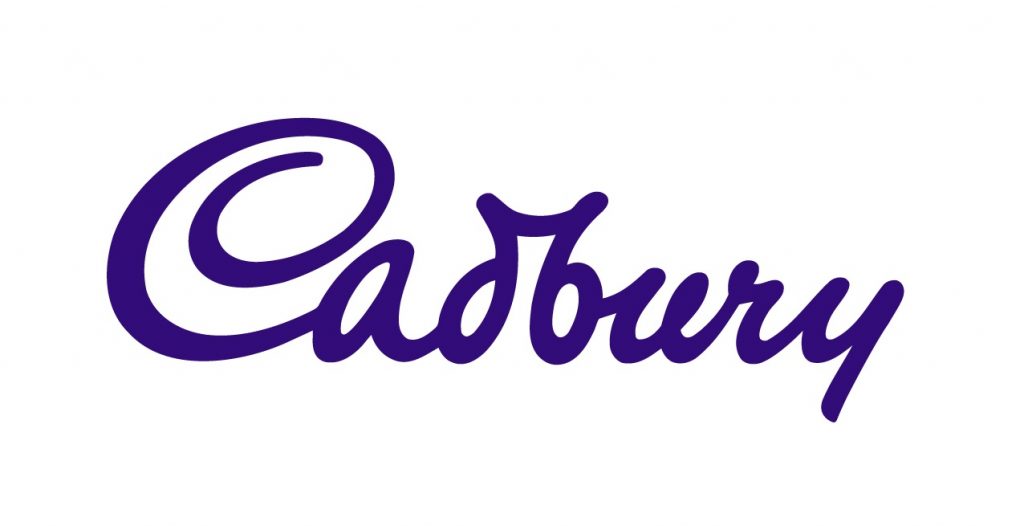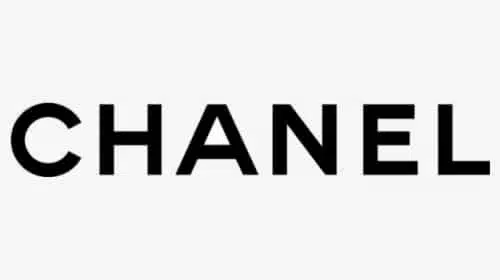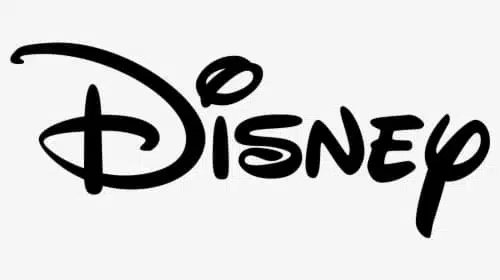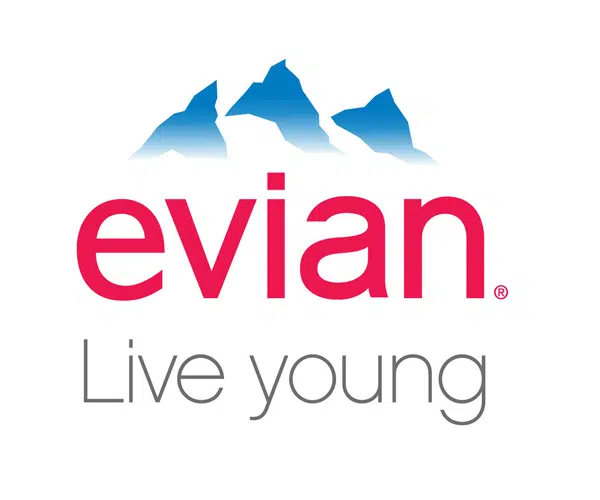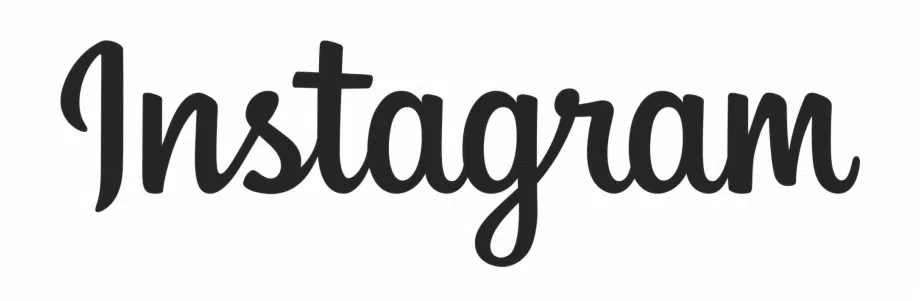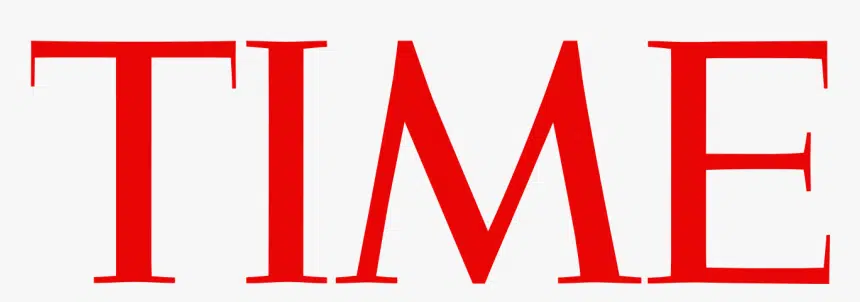
5 types of fonts that are suitable for your new business
When building a new business, you must prepare a logo that can reflect your business to your customers. Logo can’t be separated from typography, therefore before choosing a font that must be considered is the context and potential audience or consumers. Fonts represent the message you want to convey to the reader. The following is the psychology of frequently used fonts that you can adjust to your business image.
1. Serif
Classical, well-established, symbolizing trust and honor. This font is often used by companies that want to build awareness and is often used by financial, broadcasting and editorial companies, where companies need trust from clients that can start from the appearance of the company name. An example of a company that uses this font is TIME.
2. Sans serif
The font that became known in the early 20th century is a font that is the opposite of serif fonts. This font depicts simplicity, purity, modern, efficient and attractive. Some companies that use this font such as Chanel, and Evian.
3. Script
This font depicts something elegant, creative, personal and ideas of femininity. According to 99design.com, script fonts are divided into two: formal and casual. Formal scripts are suitable for wedding invitations, while casual scripts are suitable for posters and logos. Script fonts should also be used with care as they can be difficult to read in certain contexts. This font is used for large titles and not long text. Companies that apply this font are Instagram and Cadburry.
4. Handwritten
As the name suggests this font is similar to human handwriting, giving it a unique and creative touch in its use. This font is great for book covers, posters and logos.
5. Display
Very unique and stylish, this font can add personality to your business, showing business casual, fun or quirky. Therefore this font is best suited for a brand or logo. One company that uses this font is Disney.